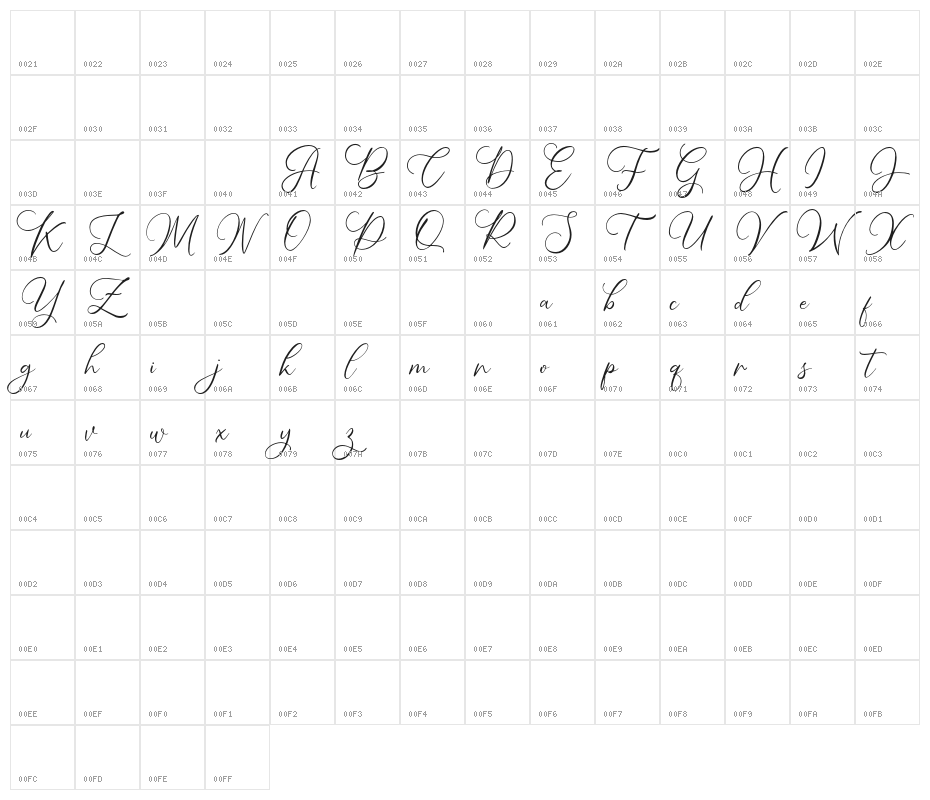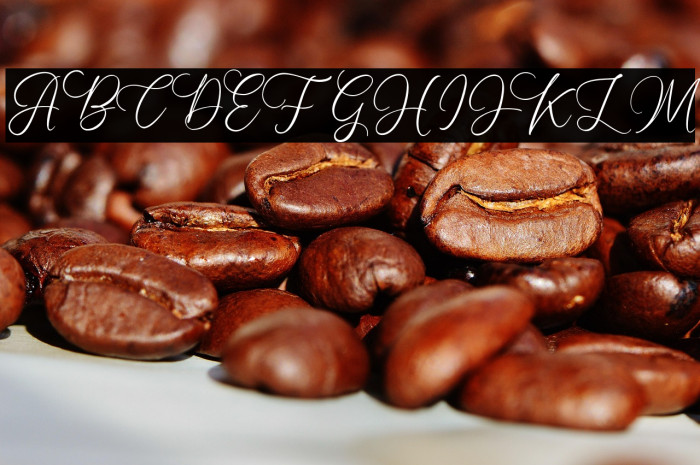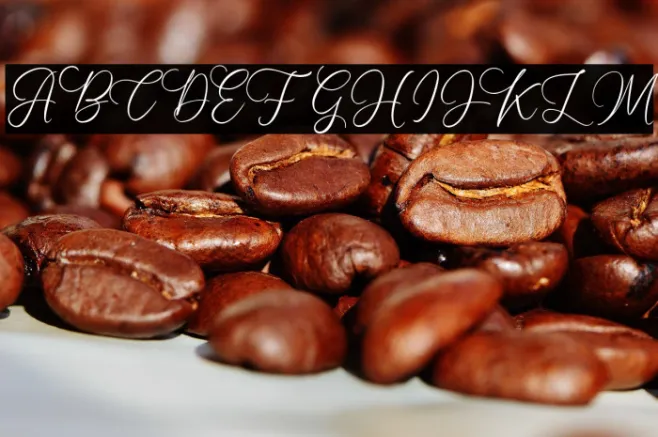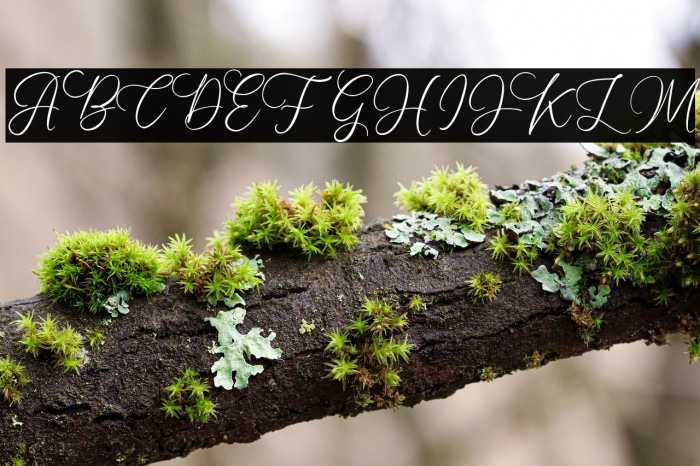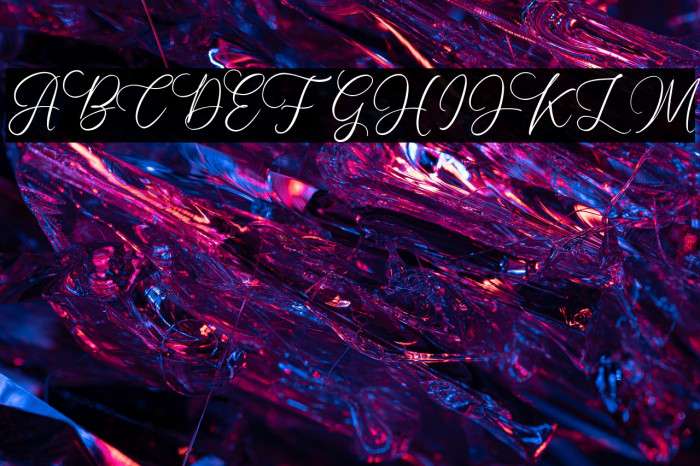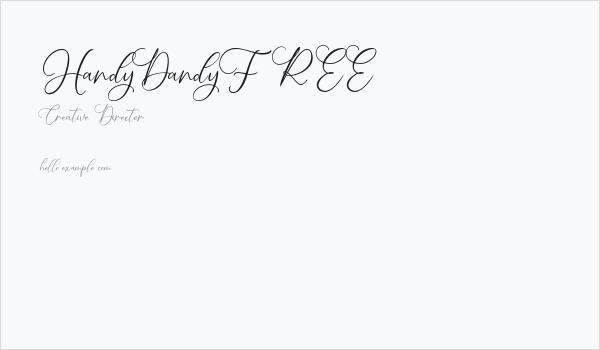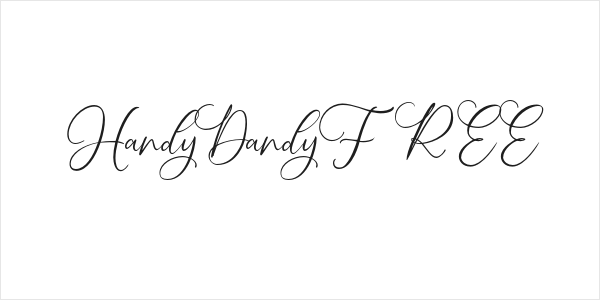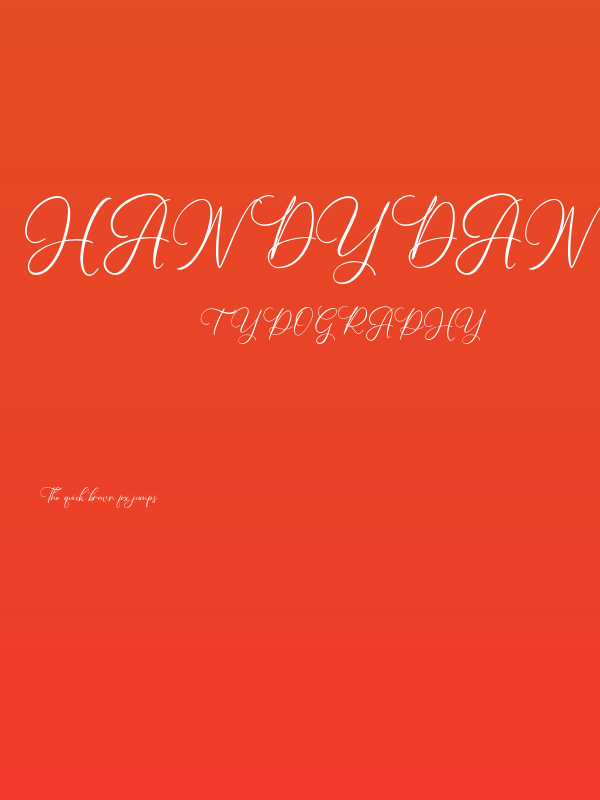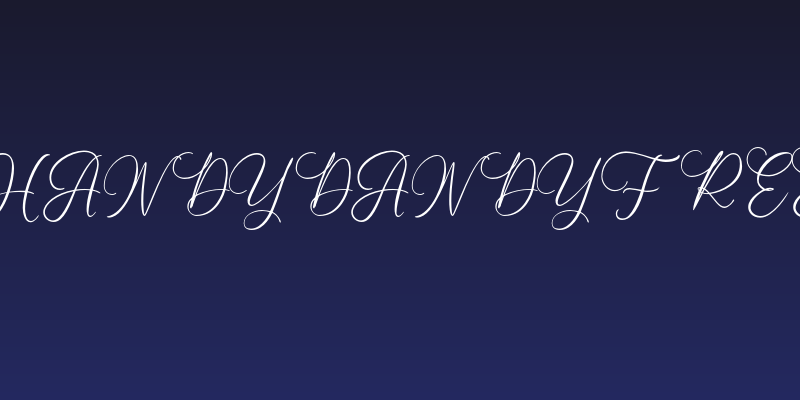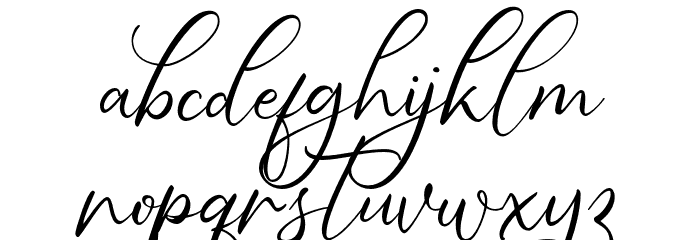
HandyDandyFREE Font
HandyDandyFREE Description
This font features an elegant and flowing script style, characterized by its graceful curves and fluid strokes. The uppercase letters are ornate, with intricate loops and flourishes that give a sense of sophistication and charm. The lowercase letters maintain a consistent style, with smooth connections between characters, enhancing the overall readability despite the decorative nature. The numerals and special characters are designed to match the script's aesthetic, ensuring a cohesive look across all text elements. This font is perfect for projects that require a touch of elegance and personal flair.